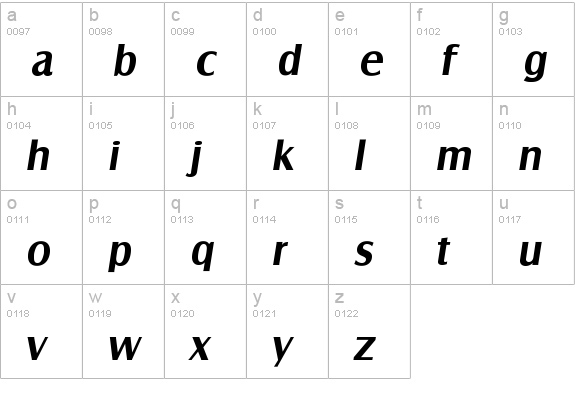
Salzburg-DemiBoldIta font is a stunning and elegant typeface that exudes confidence and sophistication. Its bold and italic design adds a touch of flair and uniqueness, making it perfect for a wide range of design projects. This versatile font is ideal for creating eye-catching headlines, stylish logos, striking posters, and captivating marketing materials. Its strong and powerful appearance demands attention and ensures that your message is communicated with impact. The Salzburg-DemiBoldIta font features beautifully crafted letterforms that are both contemporary and timeless. Its sleek curves and sharp edges create a harmonious balance between modernity and classic elegance. One of the best things about the Salzburg-DemiBoldIta font is that it is free. Yes, you heard it right! This incredible font is freely available to download at FontsMarket.com. Now, you can elevate your designs and give them a touch of sophistication without spending a dime. Whether you are a professional designer or a creative enthusiast, the Salzburg-DemiBoldIta font is a must-have in your font collection. Its versatility, elegance, and availability make it the perfect choice for any design project. So why wait? Head over to FontsMarket.com and download the Salzburg-DemiBoldIta font today!